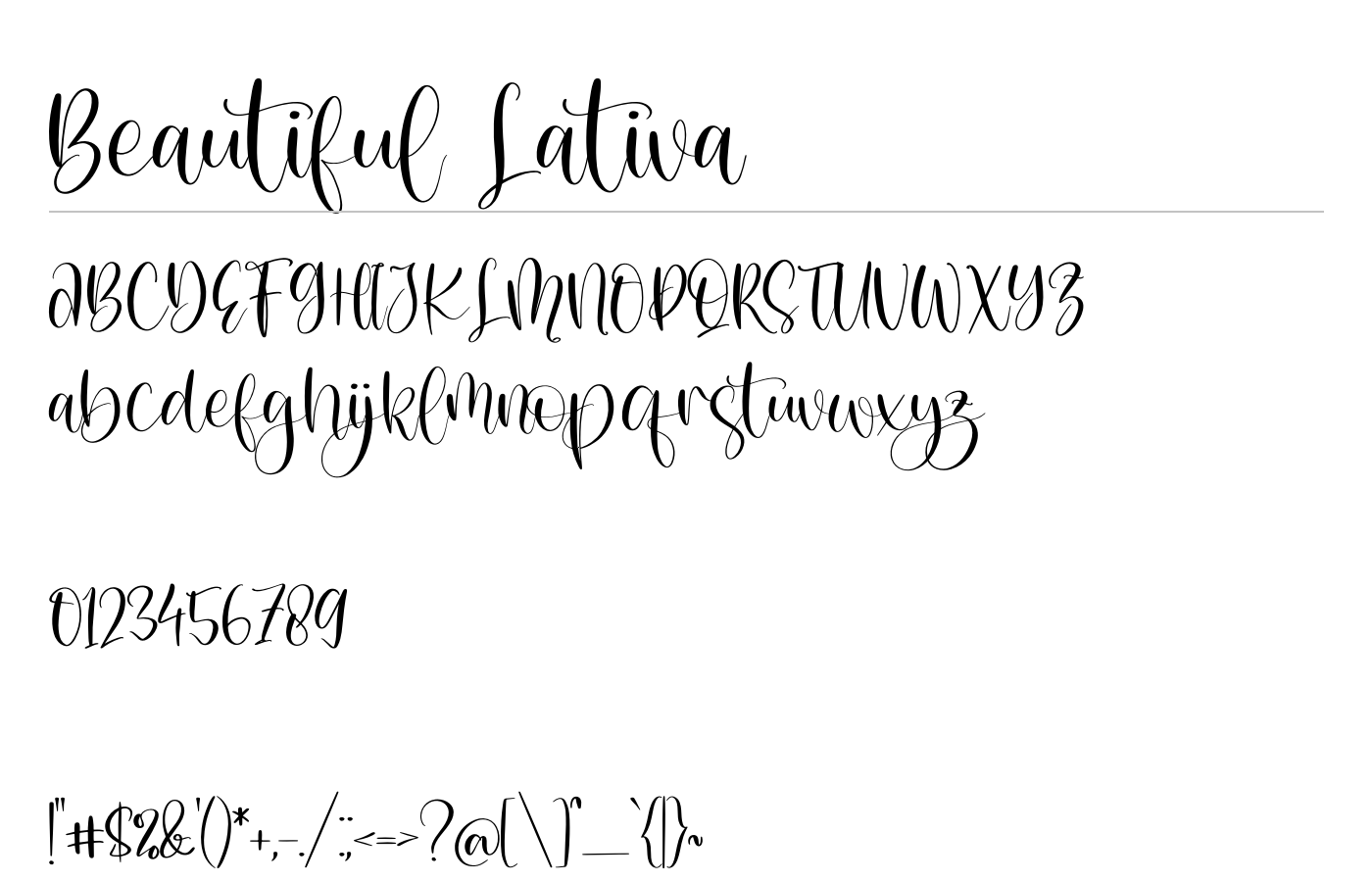
Beautiful Lativa is an elegant script font with flowing, handwritten letterforms that combine delicate thin strokes and playful swashes. Its tall x-height and graceful curves give it a charming, feminine feel, making it perfect for wedding invitations, branding, and stylish packaging where a personal, sophisticated touch is desired. This font works beautifully in headlines and decorative text, adding an artistic flair to any creative project.
Beautiful Lativa Font
About Beautiful Lativa Font
| Font family | Beautiful Lativa Font |
| Designer | Nanang Jamaludin |